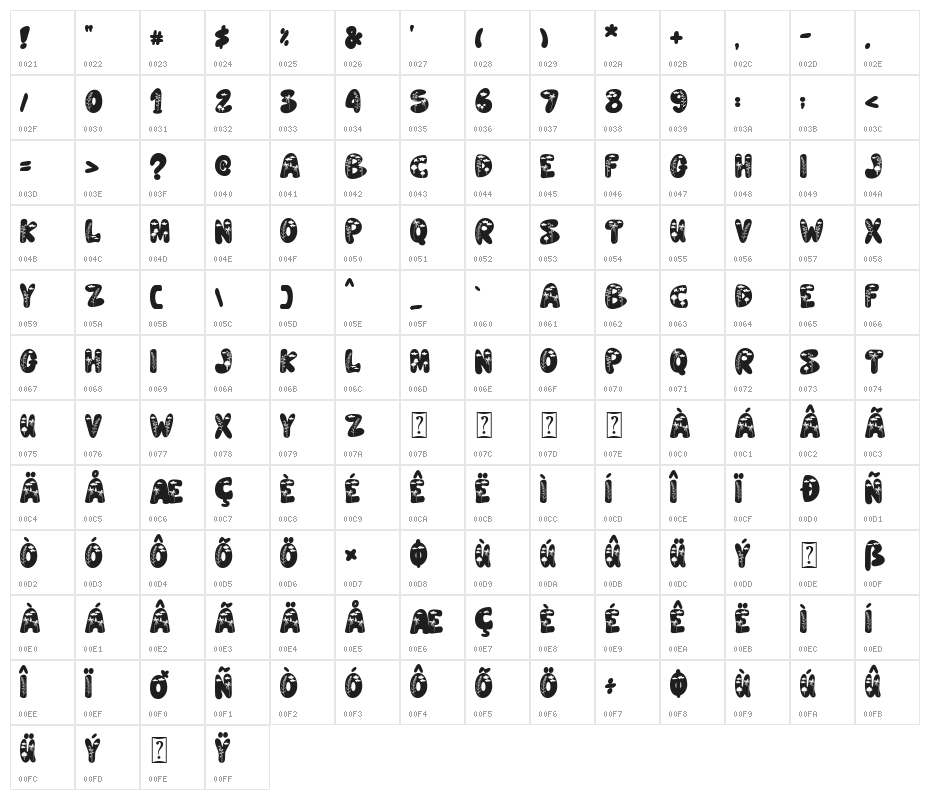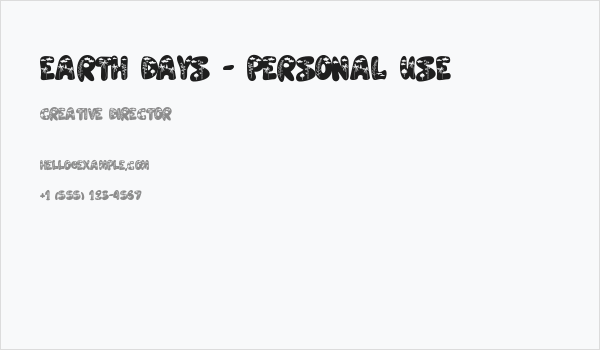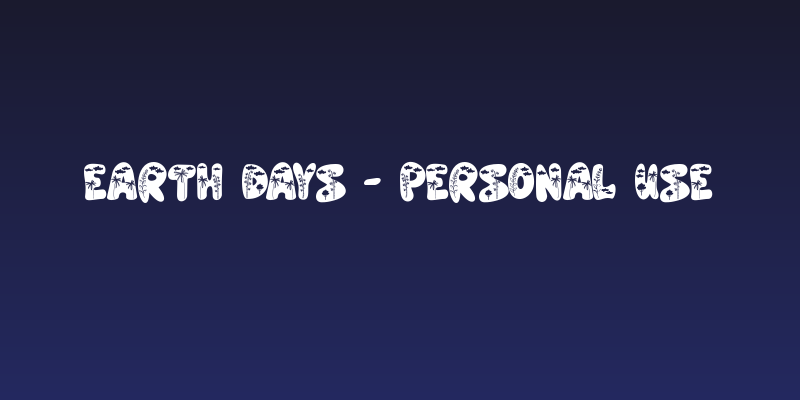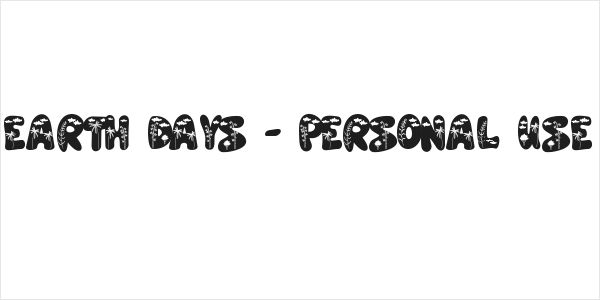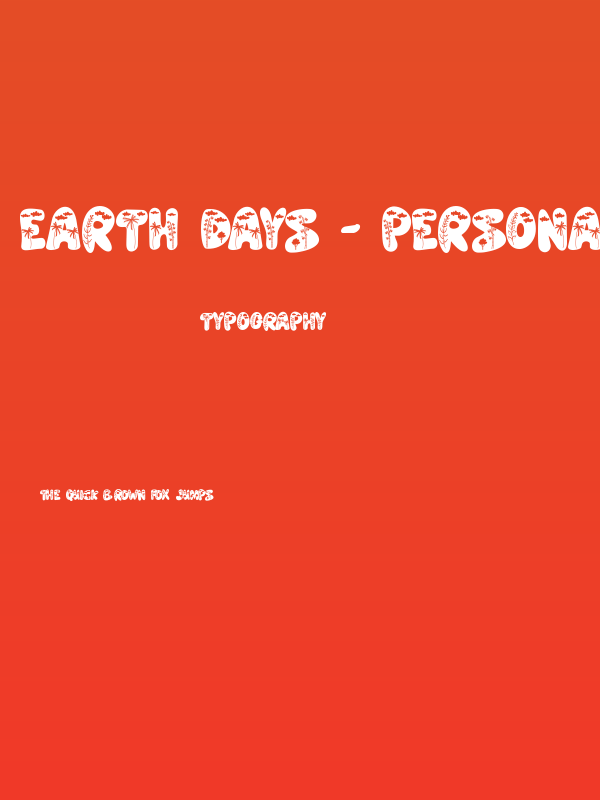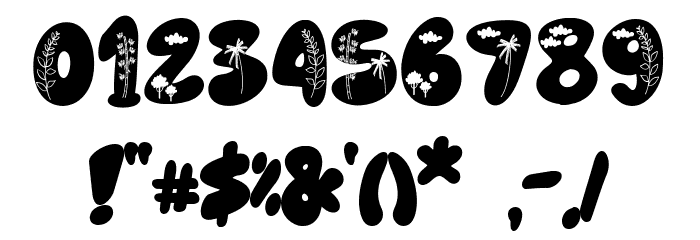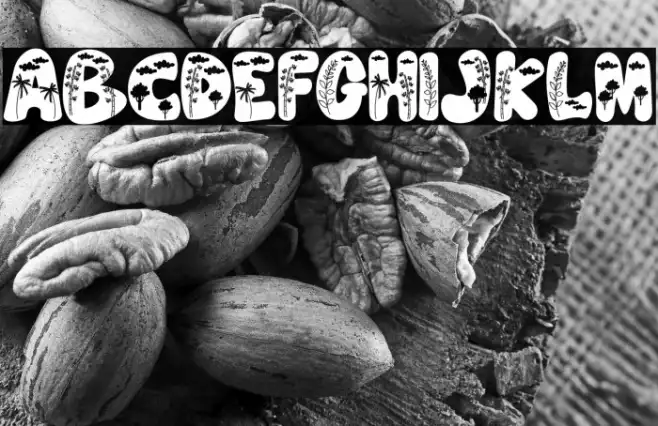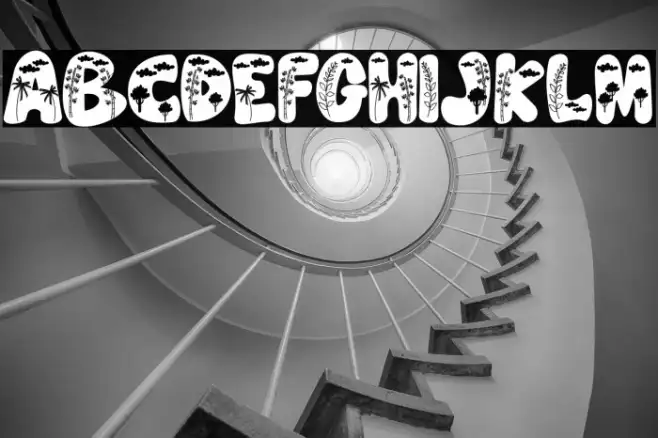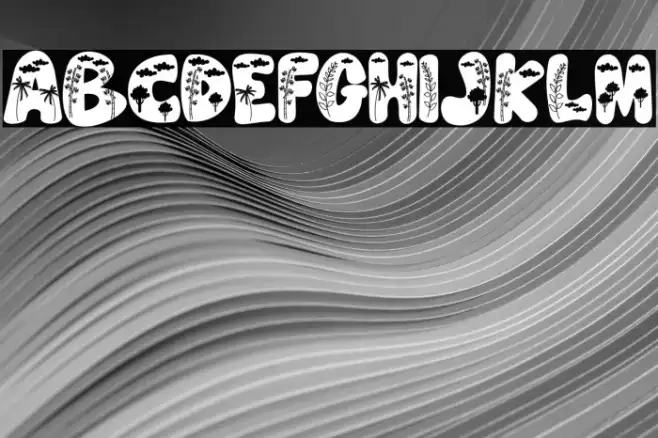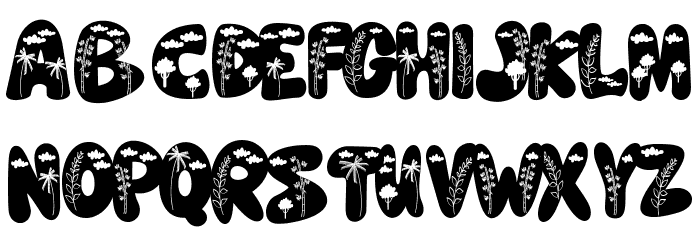
Earth Days - personal use Font
Earth Days - personal use Description
This playful and decorative font features bold, rounded characters filled with intricate floral patterns. Each letter and number is adorned with unique botanical elements, creating a whimsical and nature-inspired aesthetic. The design is eye-catching and artistic, making it ideal for projects that require a touch of creativity and natural beauty. The font's style is consistent across uppercase, lowercase, and numeric characters, maintaining its decorative theme throughout. Special characters are also included, each with its own floral embellishments, adding to the font's cohesive and charming appearance.
| Use Case | Logos, Posters, Invitations |
| Proposed Projects | Ideal for eco-friendly branding, nature-themed posters, children's book covers, and creative event invitations. |